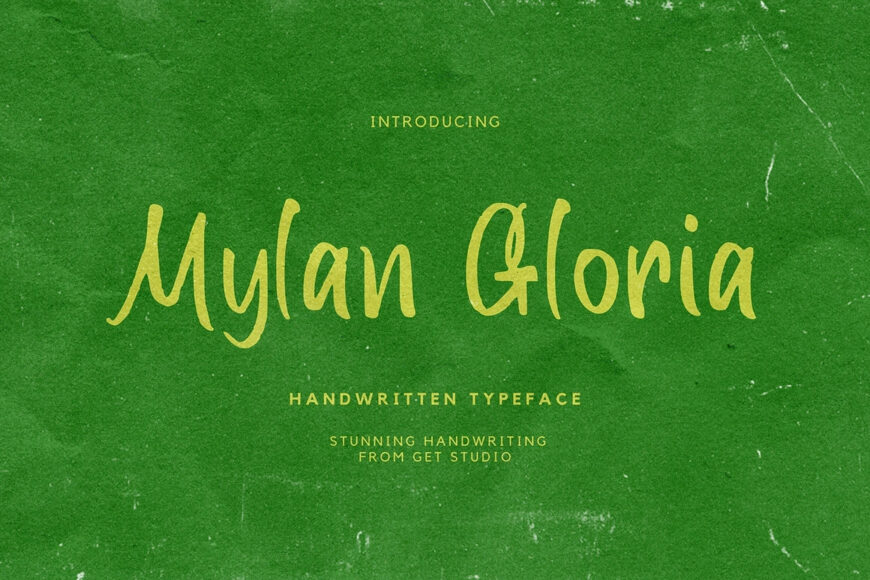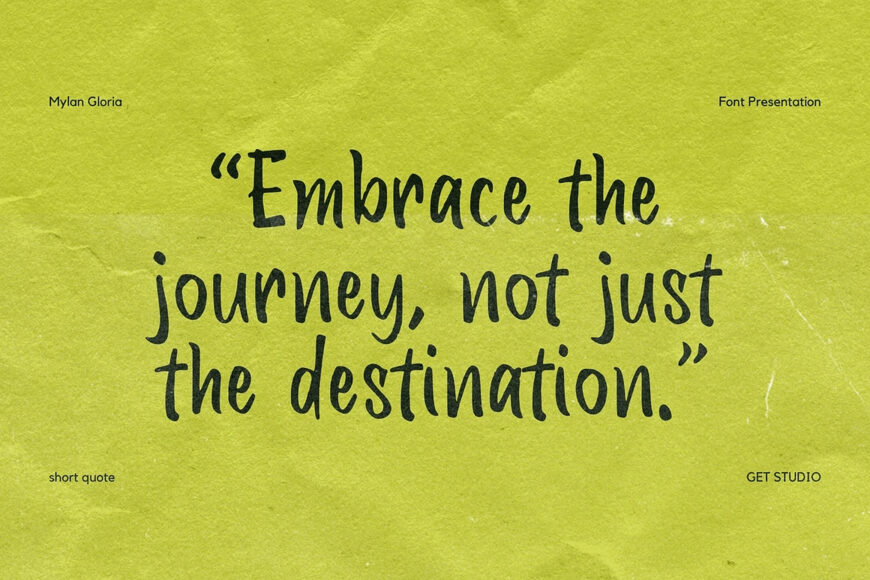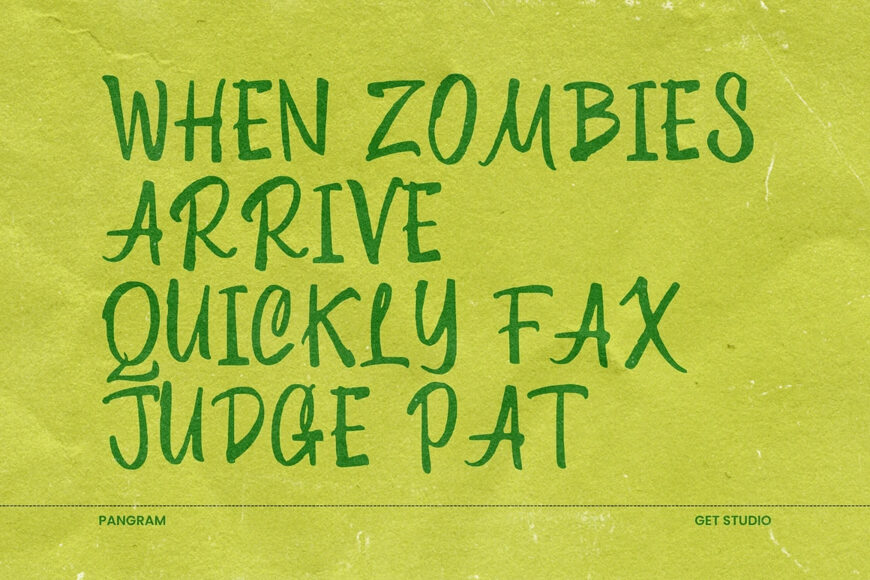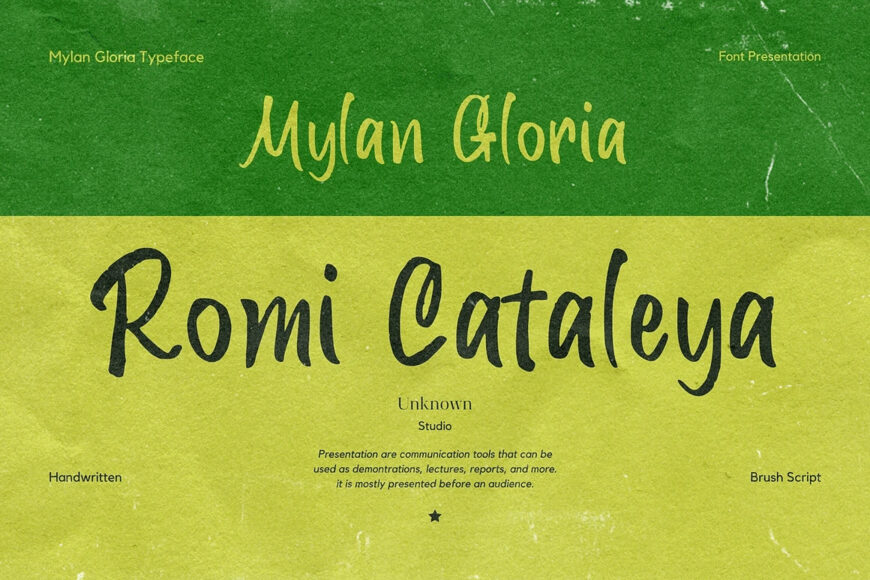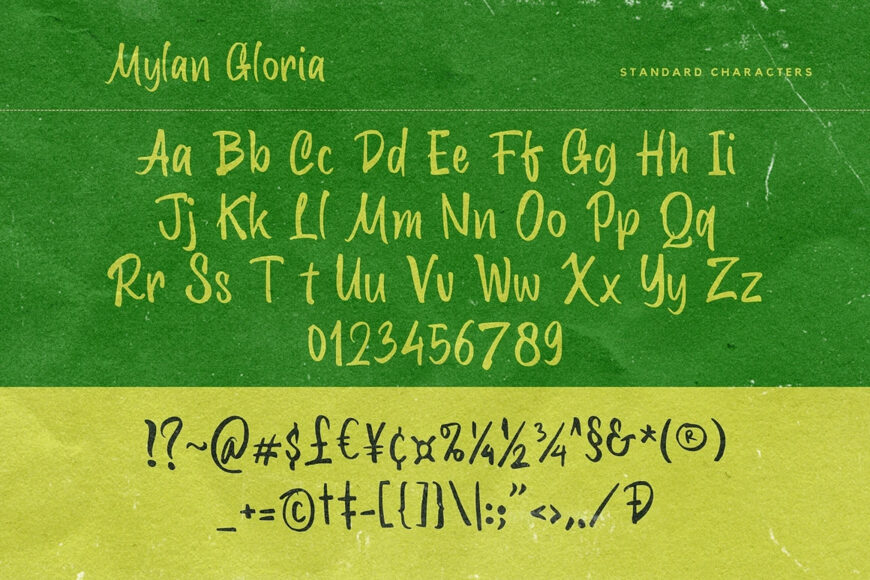
Mylan Gloria is a handwritten font characterized by its casual, elegant, and slightly whimsical style. It features fluid strokes and natural, flowing lines that mimic authentic handwriting, making it ideal for designs that require a personal and intimate touch.
This font is versatile and works well for various applications such as invitations, greeting cards, logos, and social media graphics. Mylan Gloria’s charm lies in its ability to convey warmth and personality, enhancing the visual appeal of any project it graces.